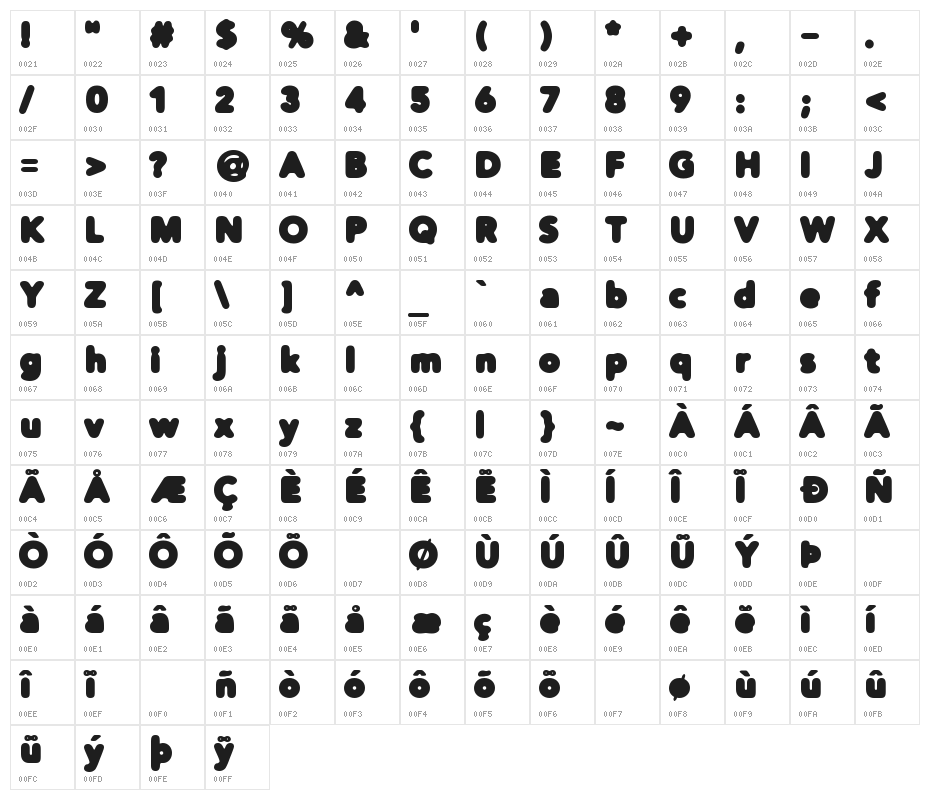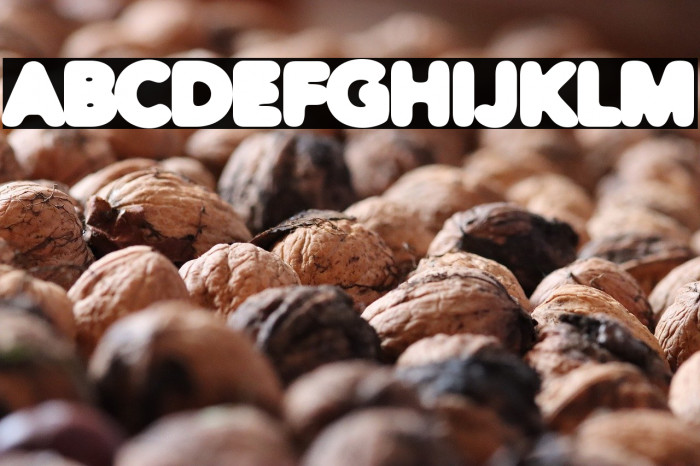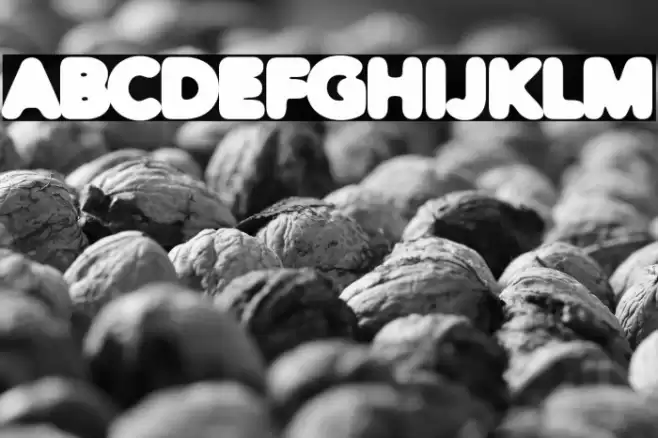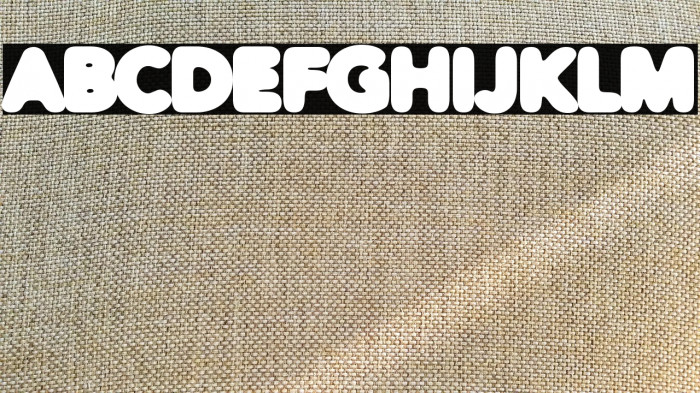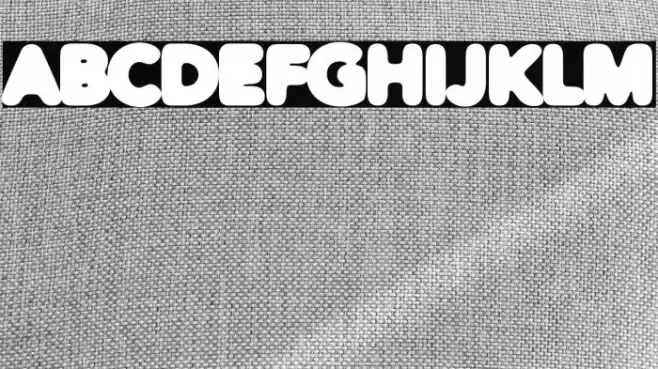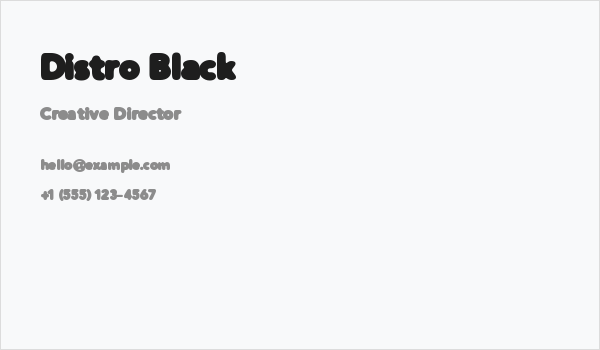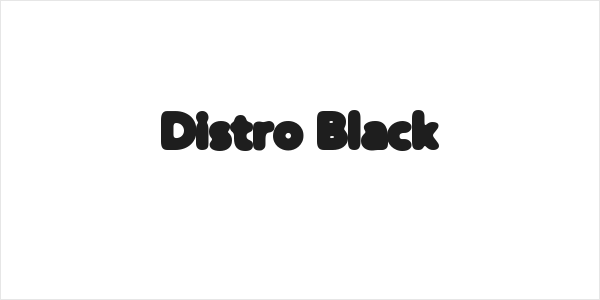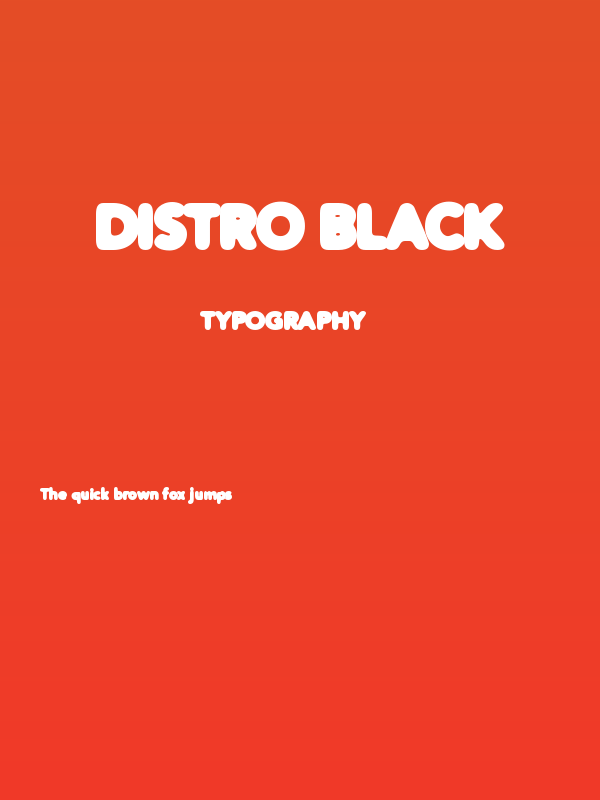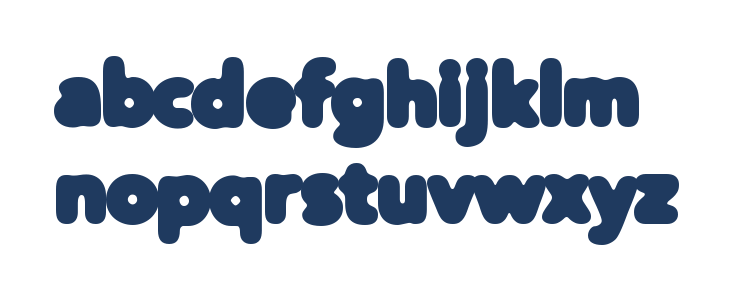
Distro Black Font
Distro Black Description
This font features bold, rounded characters with a playful and friendly appearance. The letters are thick and have a uniform stroke width, giving them a strong presence on the page. The rounded edges and lack of sharp angles contribute to a soft, approachable look. The characters are evenly spaced, ensuring readability while maintaining a cohesive visual style. The font includes a full set of uppercase and lowercase letters, numbers, and a variety of special characters, making it versatile for different design needs. Its boldness and unique style make it ideal for attention-grabbing headlines and creative projects.
| Overall Style | Playful, Modern |
| Proposed Projects | Ideal for children's books, playful branding, posters, and creative advertising. |